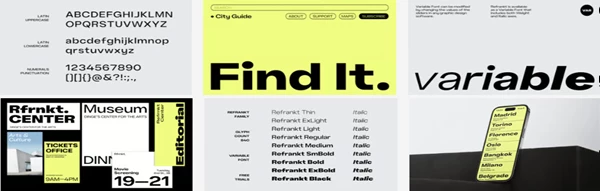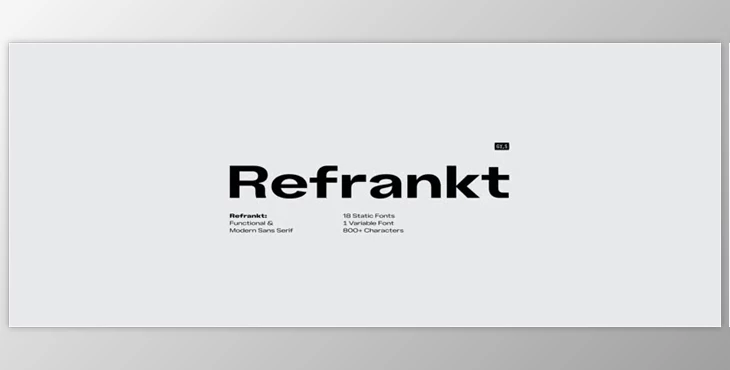
Refrankt comes in 18 styles from Thin to Black and their respective italics. This font family comes from the branching of characters and relative proportions, which is a nice, aesthetic touch to an otherwise very versatile family. So, Refrankt has display and text characteristics, working as easily in a title as it would in a full novel.
Refrankt is a grotesque sans serif family created through a rendered, functional approach, which means the potential for use is unbounded. Great for any UX/UI needs, branding, or packaging; Refrankt works as a logo and word mark just as effectively in technology, sports and industrial endeavours. Refrankt supports multilingual 200+ languages, including OpenType features: Case-Sensitive Punctuation, Stylistic Alternates. More than 800 glyphs create a full character set, tabular figures, oldstyle figures, superiors/inferiors, and fractions. Thus, Refrankt is an all-inclusive powerhouse of a font family.